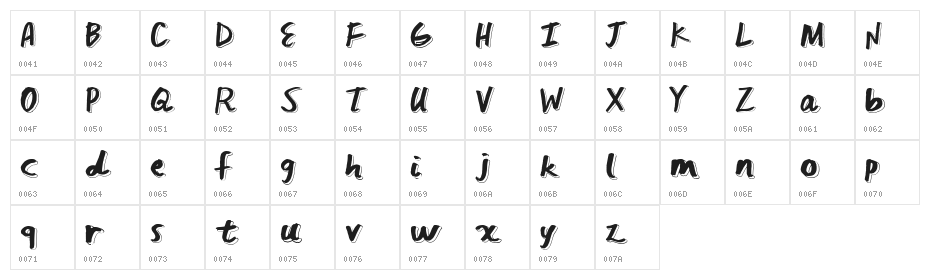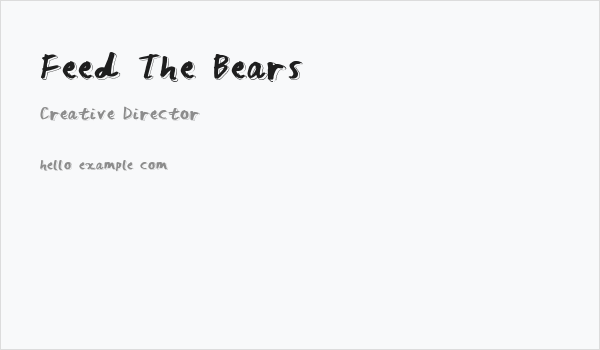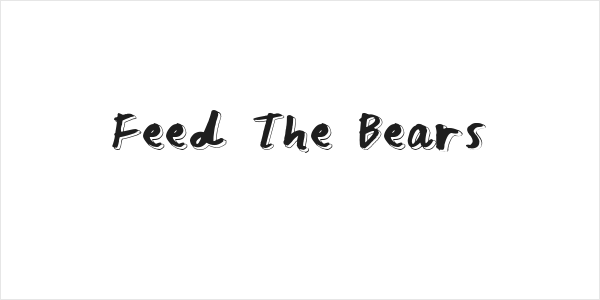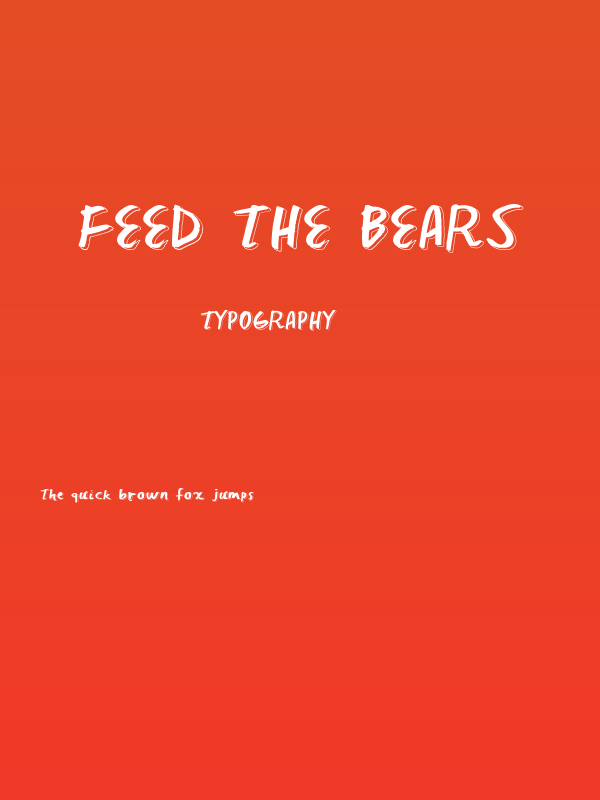
Feed The Bears Font
Feed The Bears Description
This font features a playful and dynamic handwritten style, characterized by bold strokes and a slightly irregular baseline that adds a sense of movement and energy. The letters are crafted with a brush-like texture, giving them a casual and artistic feel. The uppercase letters are bold and prominent, while the lowercase letters maintain a consistent flow with a touch of whimsy. The font's unique personality is further enhanced by its slightly exaggerated curves and angles, making it ideal for creative and expressive projects. Its distinct style captures attention and conveys a sense of fun and creativity.
Proposed ProjectsIdeal for greeting cards, posters, children's books, and creative branding projects.